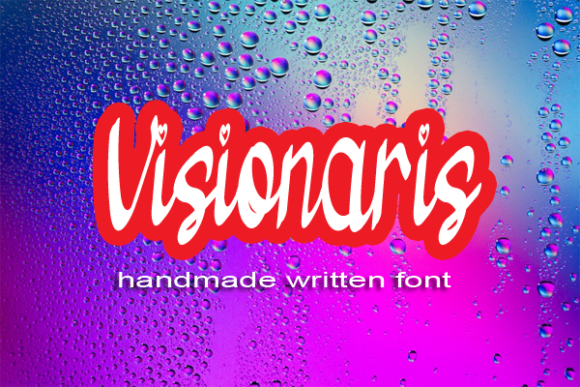
Behold the Visionaris font - a whimsical script font that exudes a relaxed theme, adorned with a charming and elegant style. This remarkable font is the brainchild of AA Studio, crafted with the utmost care and attention to detail.
With its captivating curves and playful strokes, Visionaris dances across the page like a graceful melody. Its enchanting characters possess an inherent charm that will add a touch of magic to any design. Whether you're creating stunning logos, eye-catching invitations, or whimsical social media graphics, Visionaris will effortlessly elevate your creations to new heights.
Unleash your creativity and let Visionaris take you on a visual journey. Its versatility knows no bounds, making it the perfect choice for a wide range of projects. Imagine transforming ordinary mugs into captivating works of art, adding a touch of elegance to your branding materials, or creating heartwarming invitations that leave a lasting impression. The possibilities are endless!
Step into the world of Visionaris and discover a font that will captivate your audience and leave them spellbound. Its enchanting aura will add a touch of magic to your designs, making them stand out from the mundane and ordinary. Embrace the beauty of Visionaris and watch as your creations come alive with a charm that is truly unforgettable.